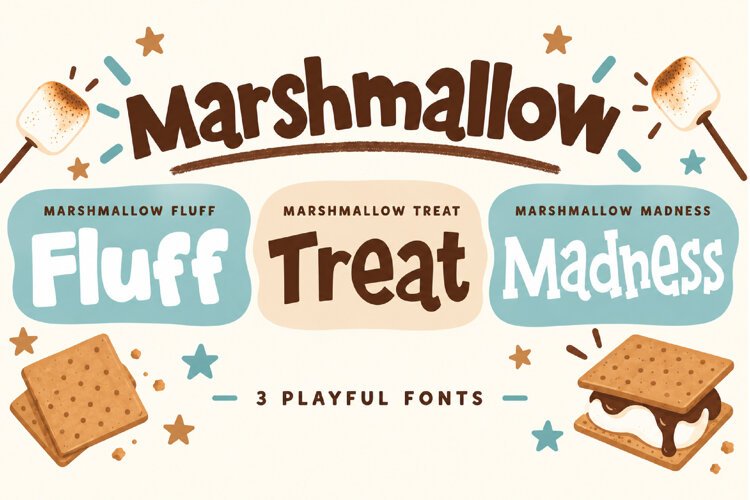
Marshmallow Font Trio | Fluff, Treat & Madness
Three playful Marshmallow fonts in one sweet bundle! Fluff is bold and bubbly, Treat has a lighter feel, and Madness adds a quirky twist. Great for party invitations, signs, stickers, and cheerful craft projects.
• The letters are not perfectly uniform in size or shape.
• There may be slight variations in the spacing between letters and words.
• The font may have a "wiggly" or "squiggly" appearance.
• The font may be difficult to read at small sizes.